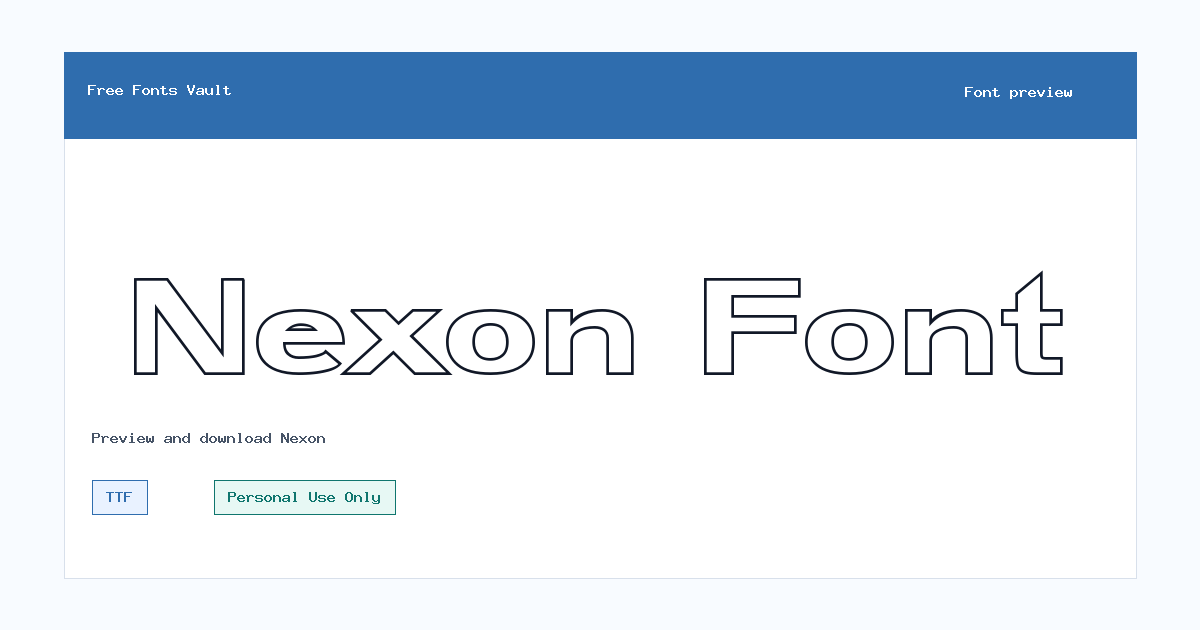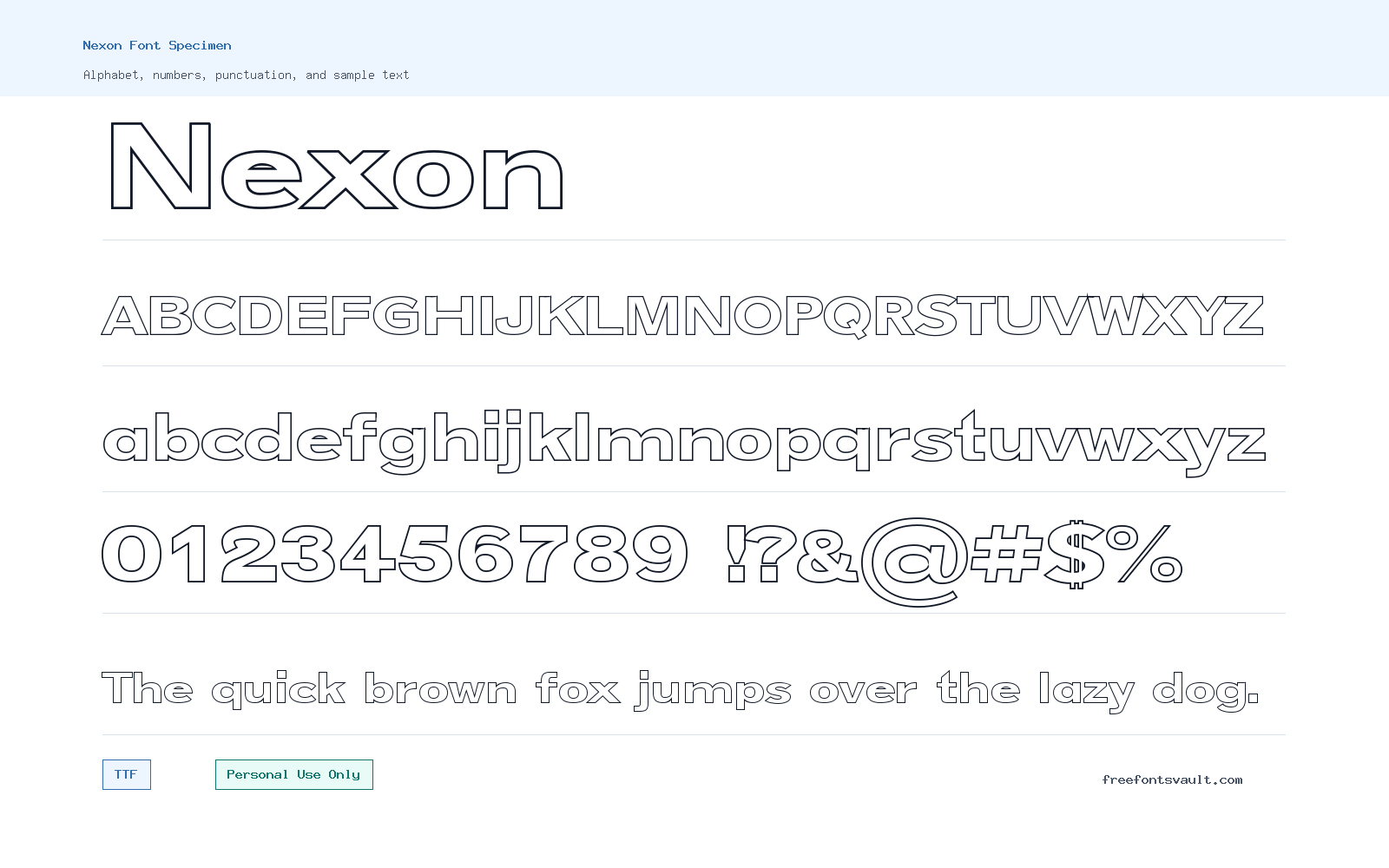
Nexon
Nexon font.
Nexon is a sans serif font family for personal projects, with a clean base style plus more decorative hollow and inverse options. It is best approached as a display-friendly family for testing titles, posters, labels, and short pieces of text rather than long reading layouts.
About Nexon Font
Nexon gives you a straightforward sans serif look in its regular style, with an italic cut for slanted emphasis and two more graphic styles: Hollow Regular and Inverse Regular. That mix makes the family useful when you want one name to cover both plain text treatment and more eye-catching headline experiments. The regular style can work for simple titles, short captions, social graphics, mockups, and personal branding drafts, while the hollow and inverse versions are better suited to larger sizes where their shapes have room to show clearly.
Because the family contains decorative styles, it is worth testing your exact words in the preview before downloading. Hollow lettering can lose clarity when used too small, and inverse styles usually need careful contrast against the background. Try Nexon in all caps, title case, and a few longer phrases to see where spacing and readability feel strongest. For pairing, keep the supporting font simple: a neutral sans serif or readable serif will let Nexon handle the visual focus without making the design feel crowded.
Start by previewing the regular style for general wording, then compare the italic, hollow, and inverse styles for emphasis. Use the decorative styles at larger sizes, check contrast carefully, and avoid relying on them for dense paragraphs or small interface text.
What is Nexon best used for?
Nexon is most useful for short personal-use designs such as titles, posters, social graphics, labels, and headline mockups. The decorative styles should be tested at larger sizes for readability.
Can I use Nexon for body text?
The regular style may work for short lines, but the family is better suited to display use. For long paragraphs, pair it with a more readable text font.